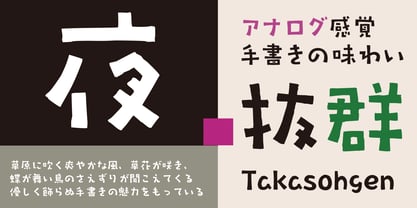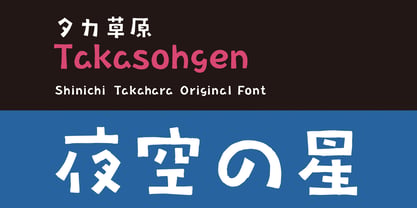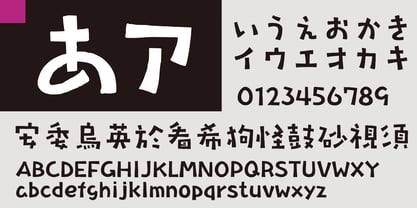
Takasohgen
by Taka Design Production
The Takasohgen Font Family was designed by and published by Taka Design Production. Takasohgen contains 1 styles. More about this family
A fresh breeze blowing in the meadow, flowers and grass blooming, butterflies dancing and birds chirping. This typeface has the charm of such gentle, unadorned handwriting.